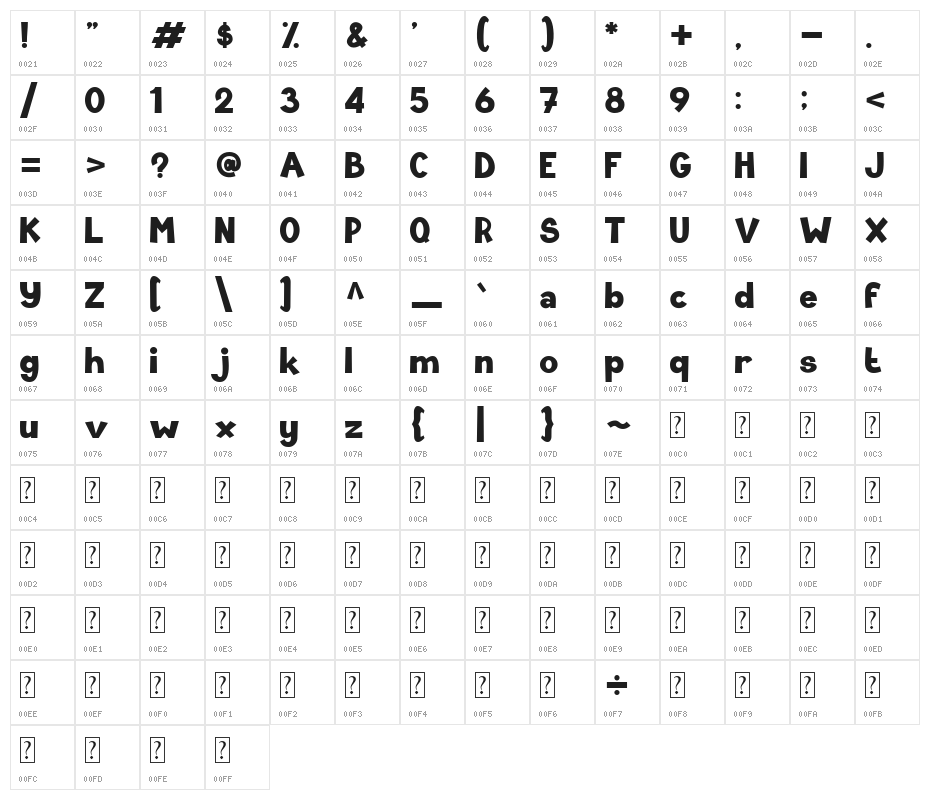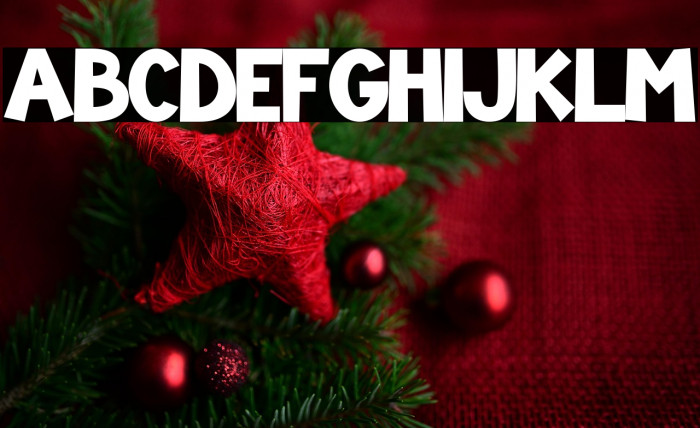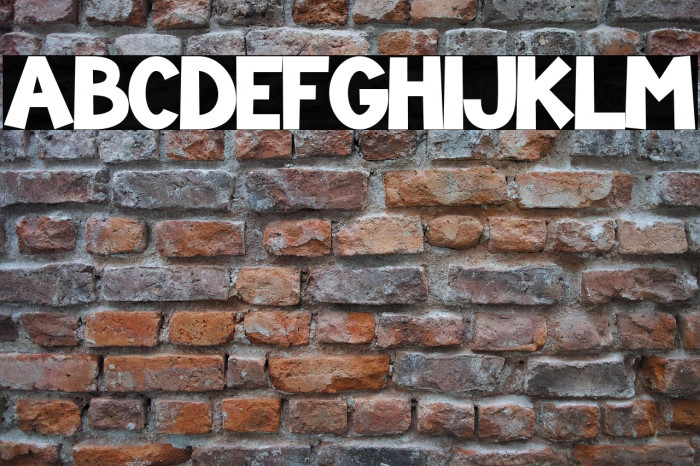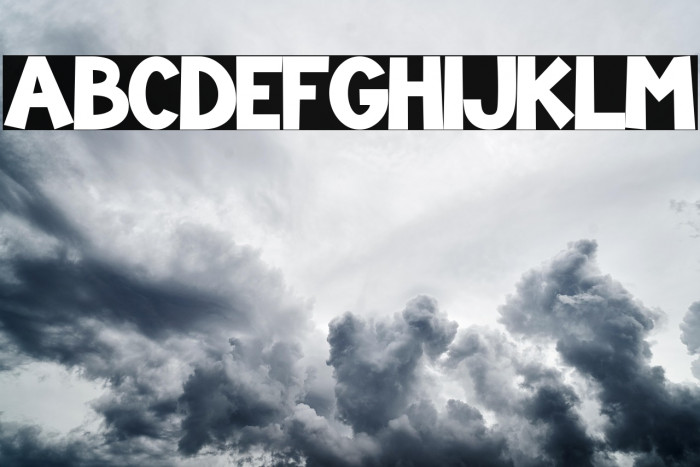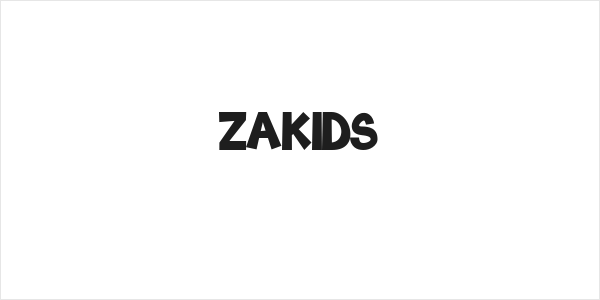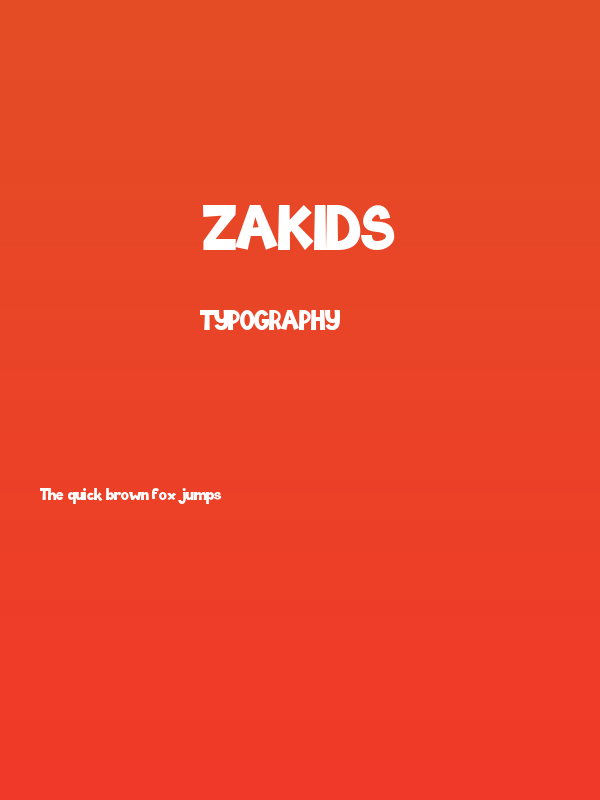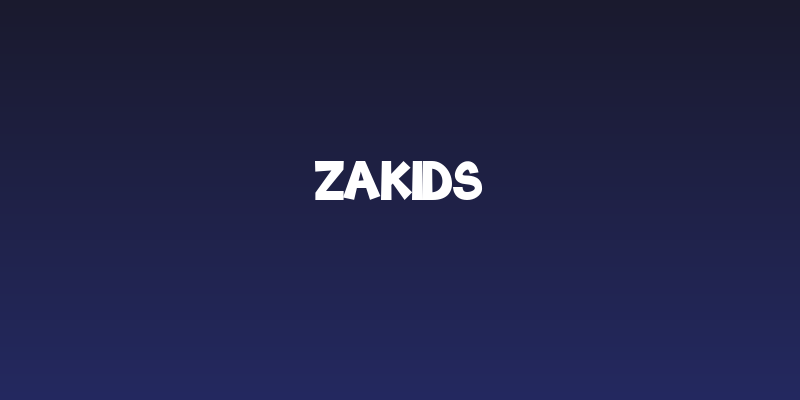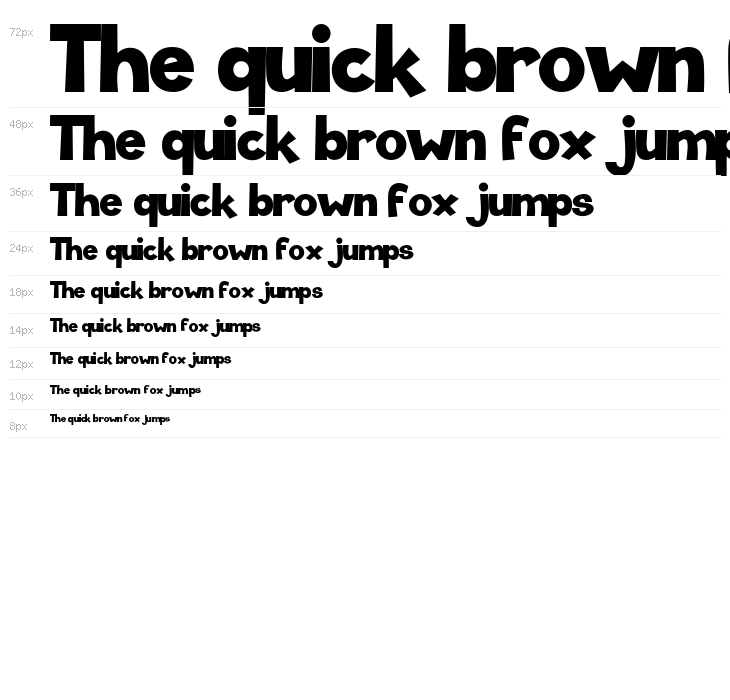
ZAKIDS Font
ZAKIDS Description
This playful and bold font features thick, rounded characters that convey a sense of fun and energy. The uppercase letters are strong and assertive, while the lowercase letters maintain a consistent, friendly appearance. The numbers are equally bold, ensuring readability and impact. Special characters are designed with the same playful style, making them suitable for a variety of creative projects. The font's overall appearance is informal and approachable, perfect for designs aimed at children or casual settings.
| Proposed Projects | Ideal for children's books, playful branding, posters, and educational materials. |